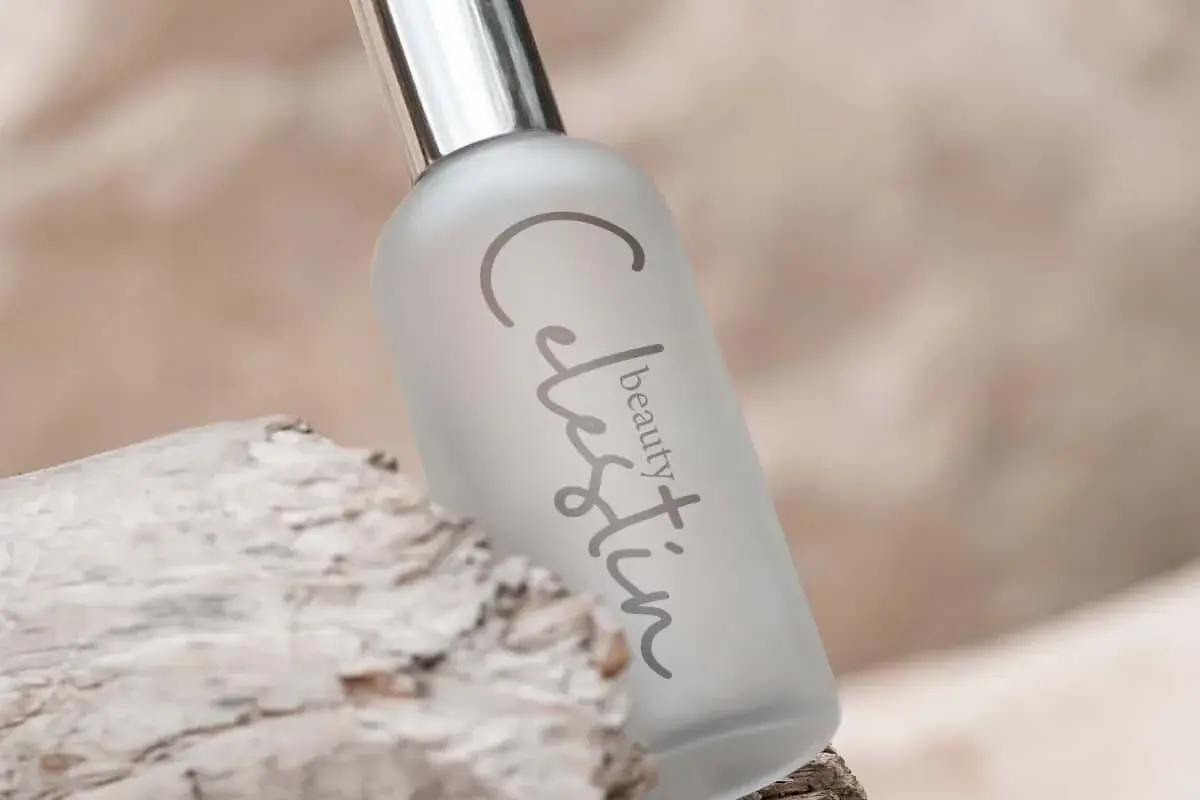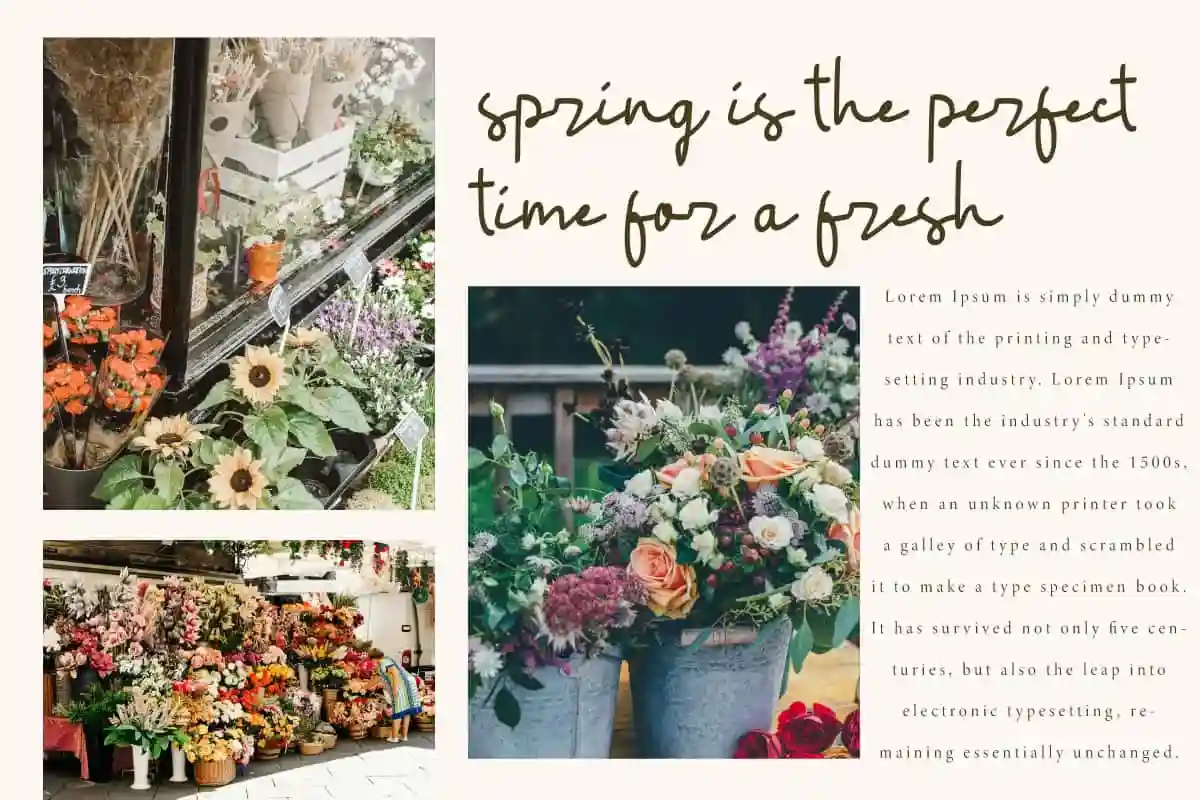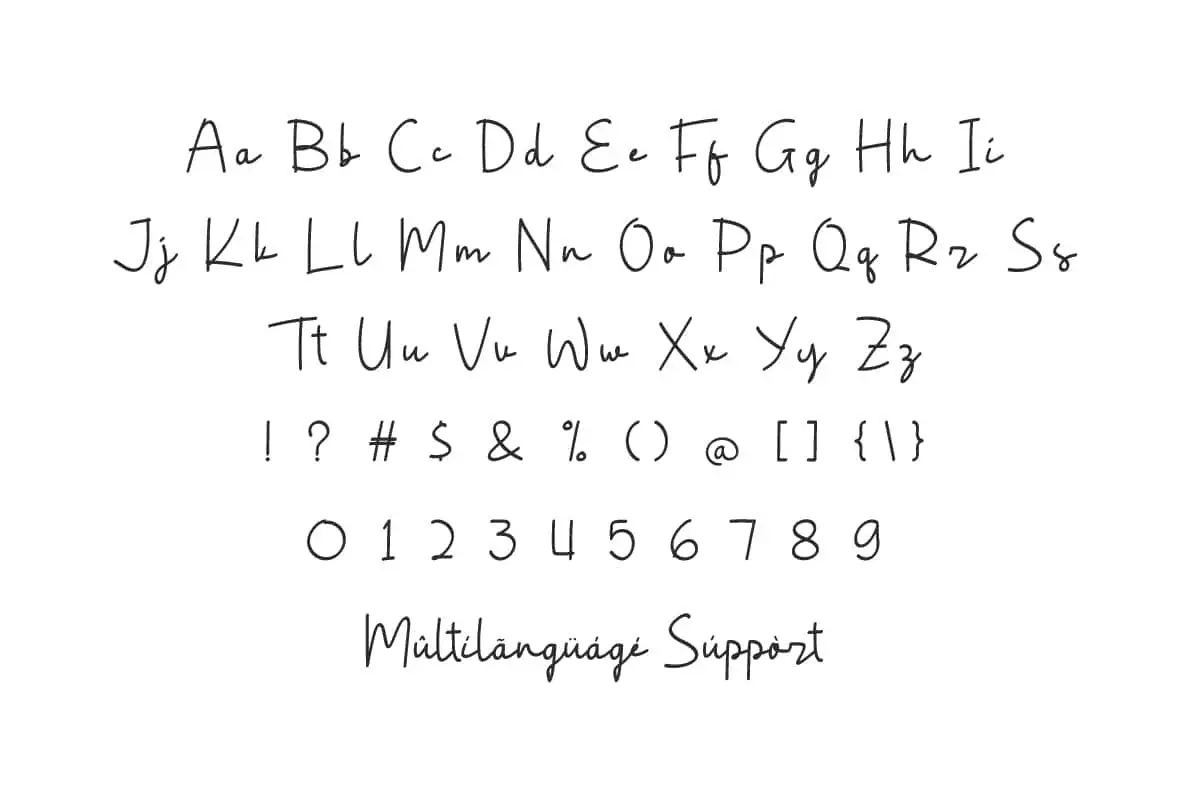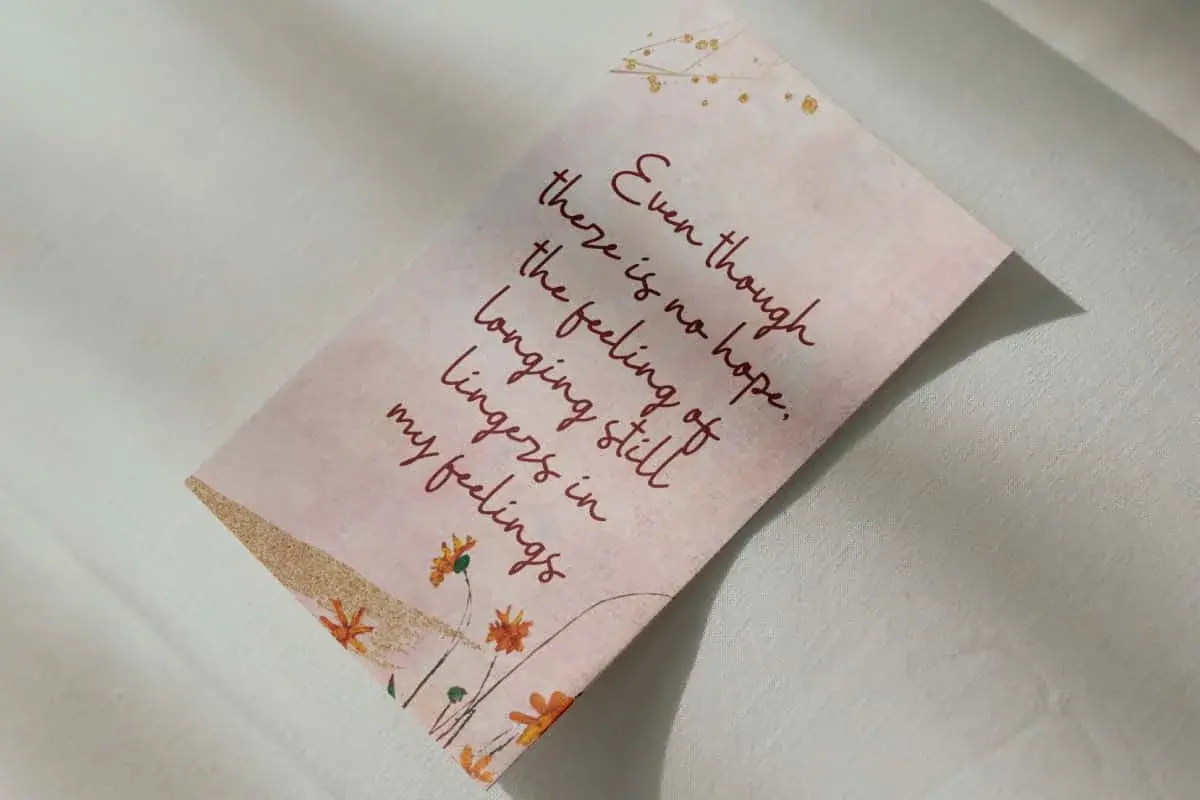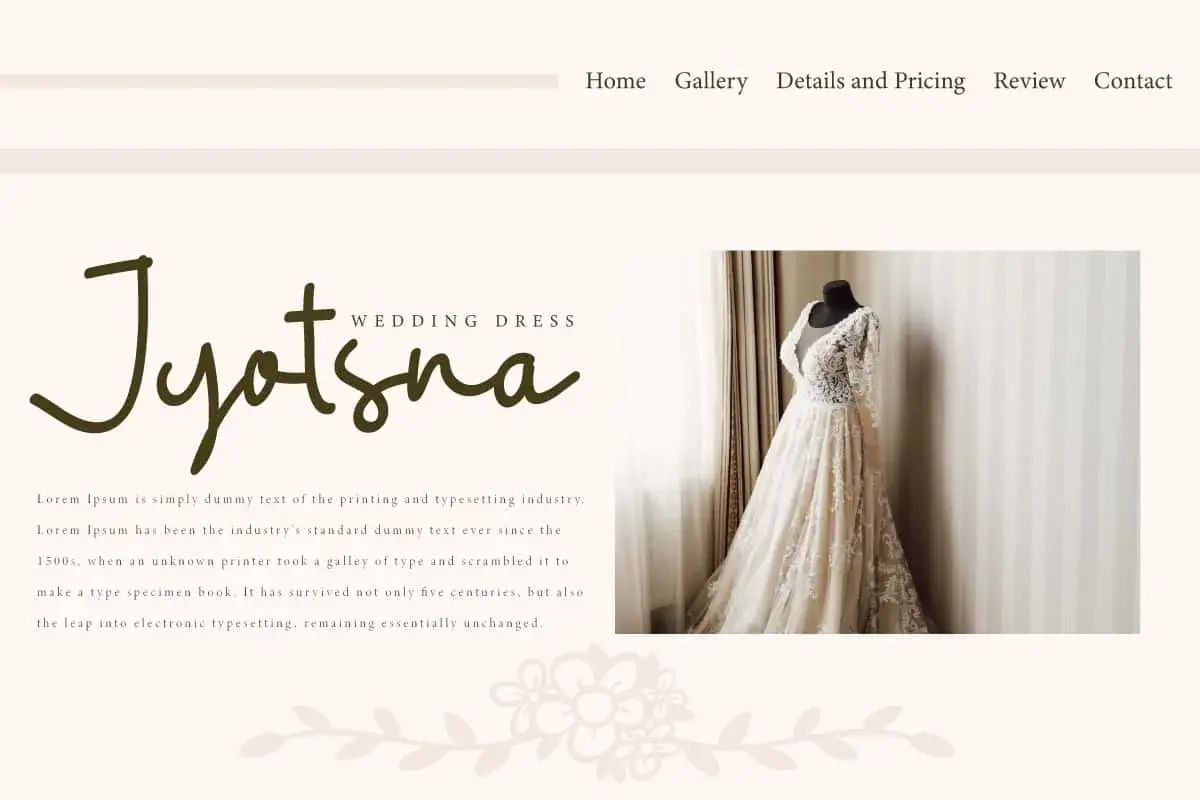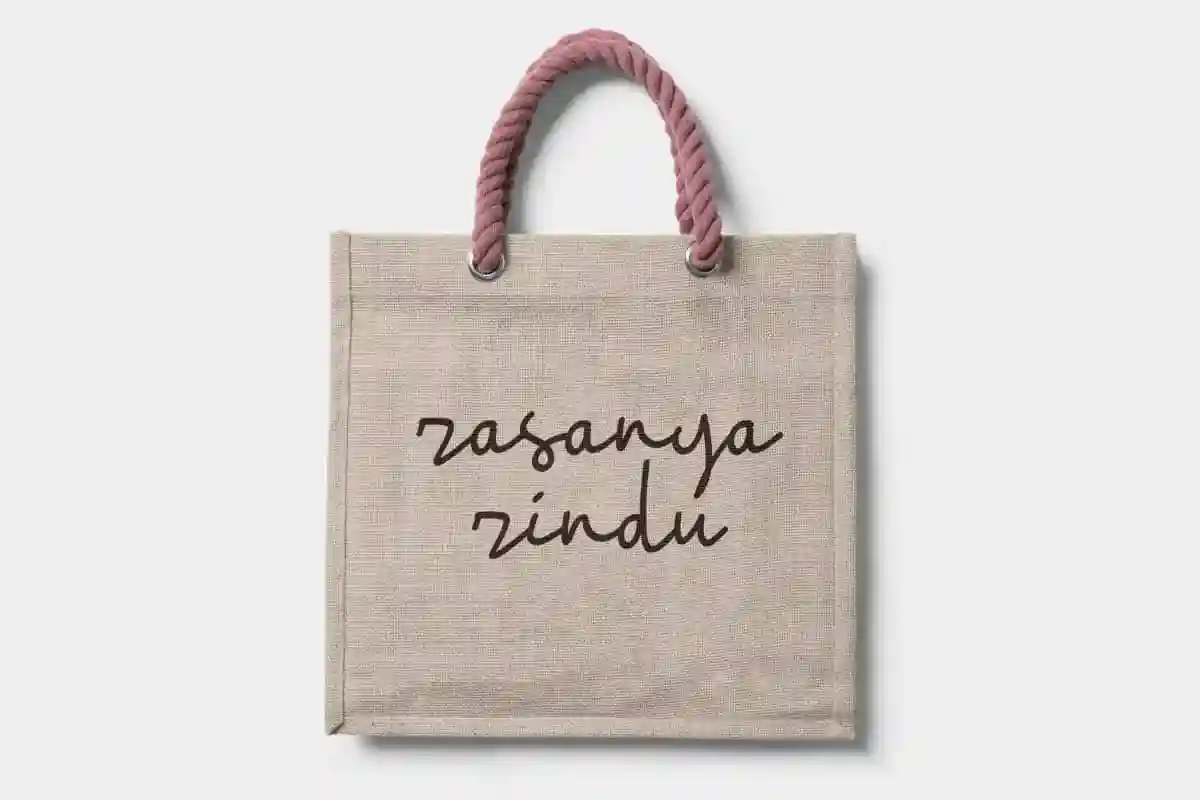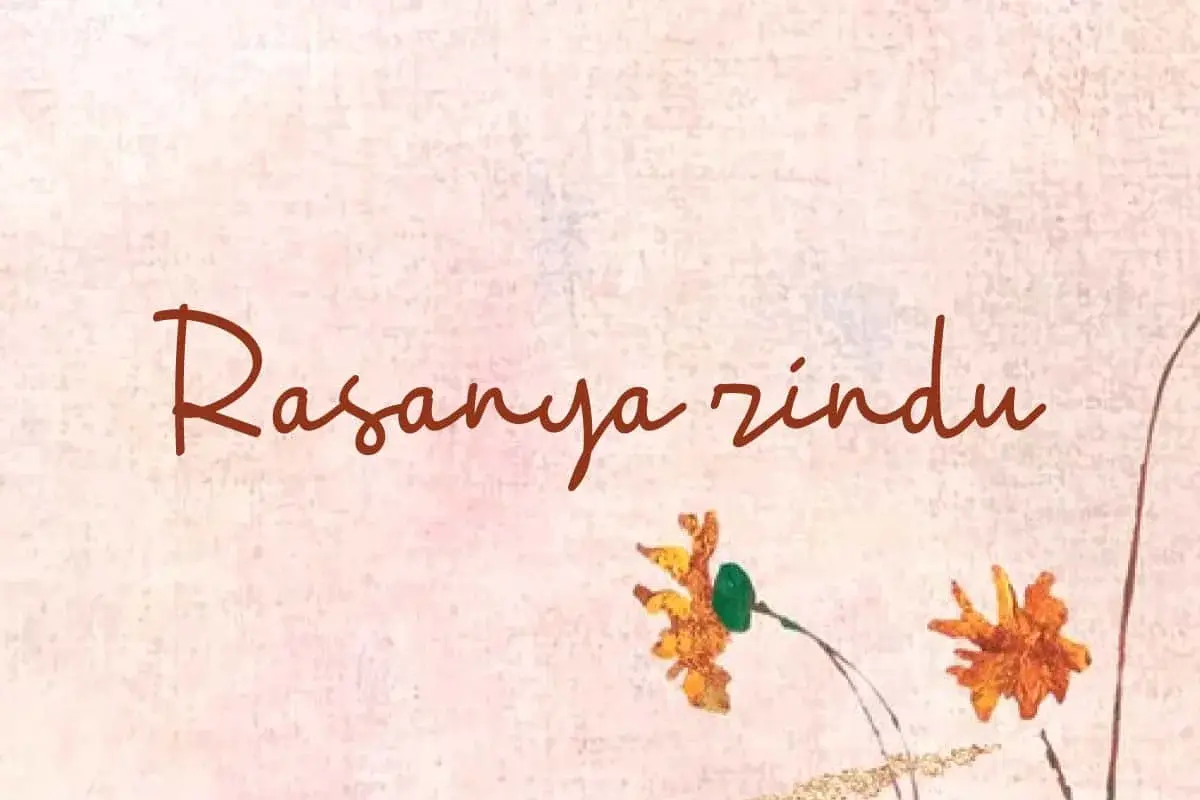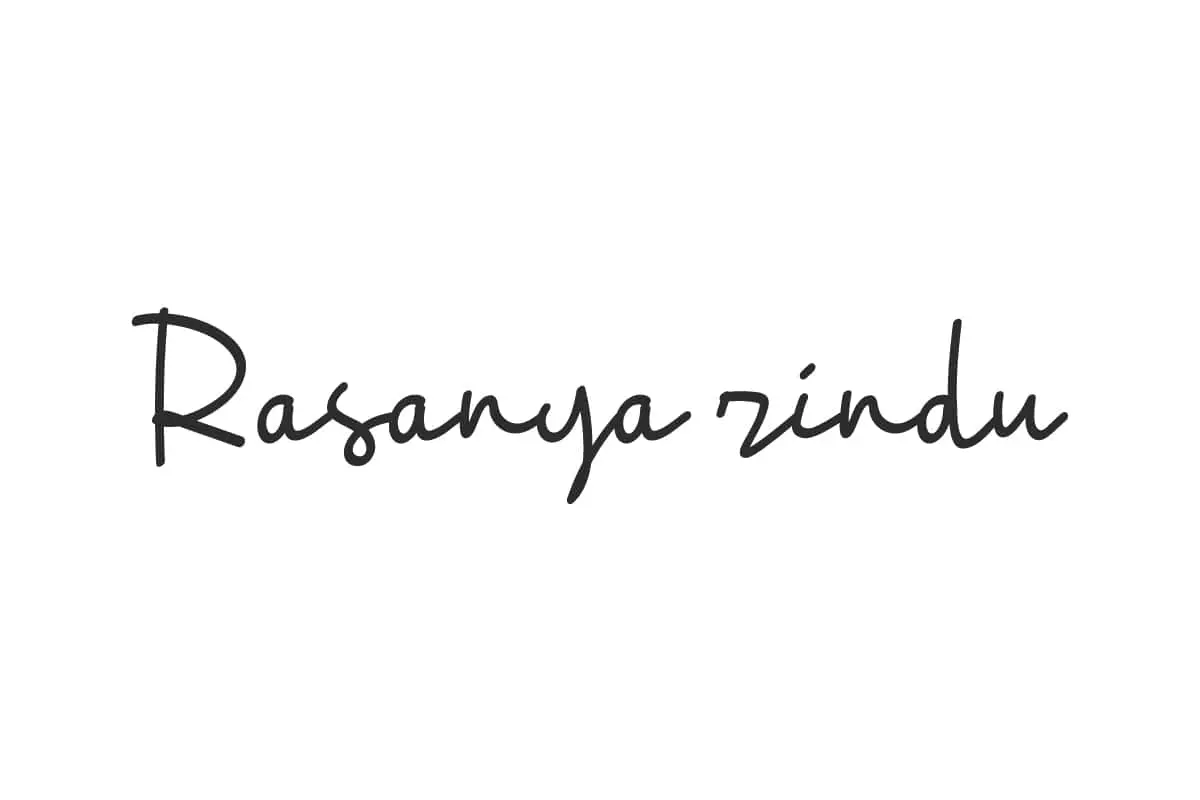
Rasanya Rindu Font
Rasanya Rindu Font is a casual cute font in an natural personal handwriting feel. With its flexibility it will take your work to the next level.
Rasanya Rindu Font is a casual cute handwriting font with a touch of personal style. Combine letters to create an organic aesthetic blend of fonts with a warm touch. Perfect for apps, blogs, greeting cards, headers, invitation, mockup, packaging, quotes, screen printing, stationery, sticker, template, titles, watermarks, website, etc.
Rasanya Rindu Font comes with a full set of Uppercase and Lowercase Basic Characters, Number, Punctuation, Symbol. This casual handwriting produces a solid marker style effect and perfect for accessories and gifts, beauty product, bridal boutique, cosmetic, fashion, florist, graphic design, illustration, spa salon, etc.